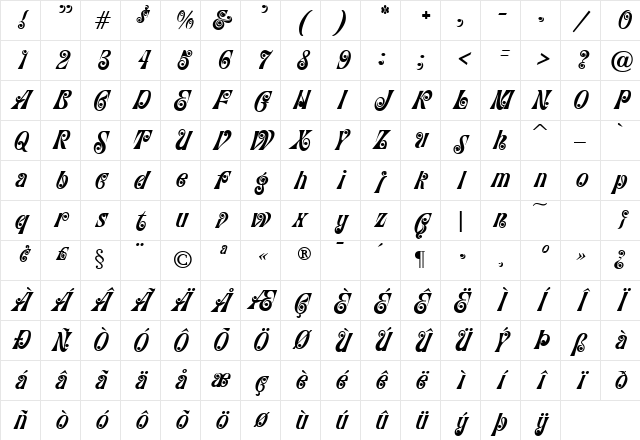
ConfectionerJF Regular Free Font
ConfectionerJF Regular
Design Context for ConfectionerJF
ConfectionerJF is a composed and adaptable typeface that performs quietly and consistently across a wide range of design contexts.
Pro Tip: Use ConfectionerJF in both headline and body roles to test its range before committing to a single application.